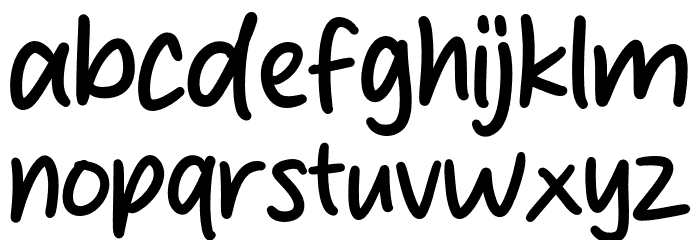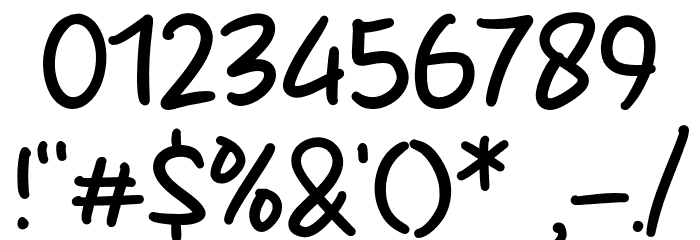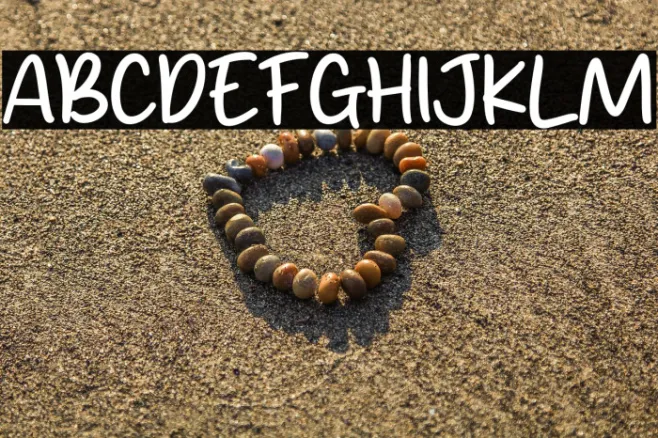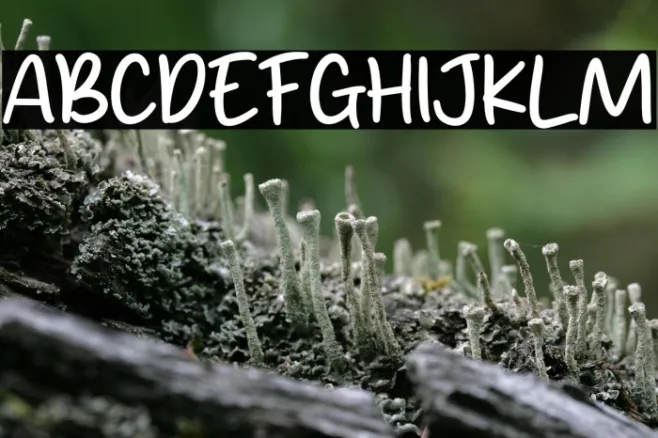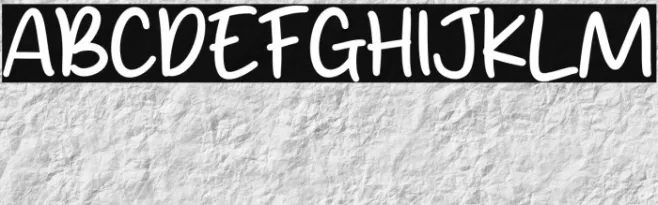
Hey Childs Font
This playful and energetic font features a handwritten style with a casual and friendly appearance. The letters are bold and rounded, giving a sense of warmth and approachability. The uppercase and lowercase characters maintain a consistent flow, with slightly irregular strokes that add to the handwritten charm. The numbers and special characters are equally expressive, making this font versatile for various creative projects. Its informal style is perfect for designs that aim to convey a sense of fun and spontaneity.
A playful, handwritten font with bold, rounded characters.
- Font: Hey Childs
- Proposed Projects: Ideal for children's books, greeting cards, playful branding, and social media graphics.
- Category: Handwritten
- Overall Style: Casual, Playful
- Use Case: Headlines, Logos, Informal Text